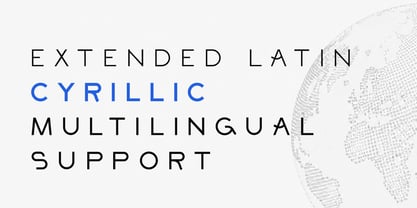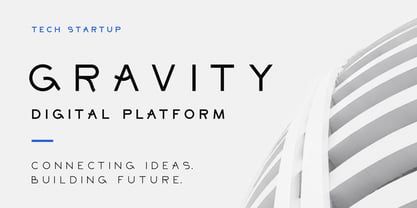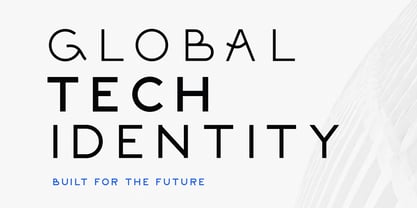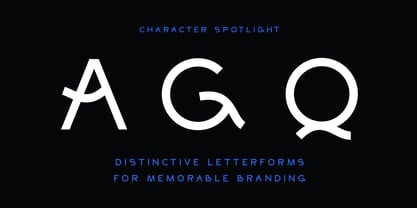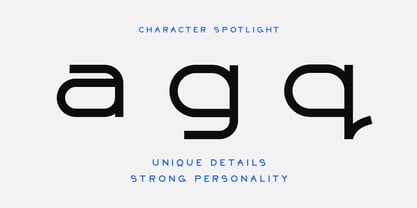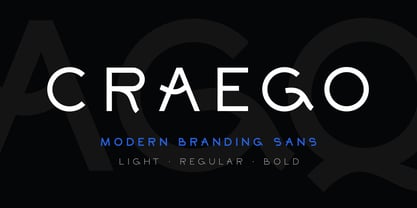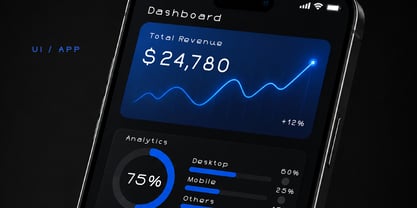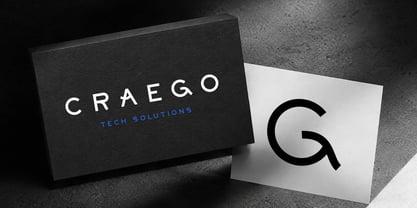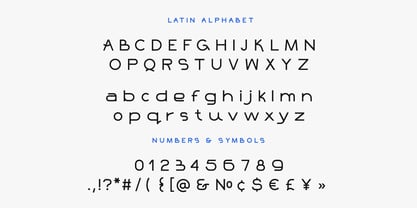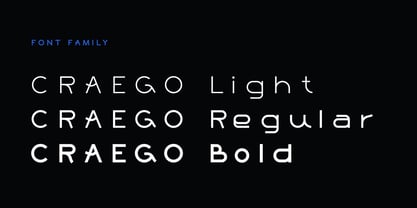
Craego
La familia tipográfica Craego fue diseñada por Ekaterina Chernysheva y publicada por Chekart. Craego contiene 3 estilos y opciones de paquete familiar. Más información sobre esta familia
Craego is a clean and contemporary branding sans serif designed for modern identities, technology companies, startups, digital products, and forward-thinking brands.
Built with distinctive letterforms and refined geometric construction, Craego balances professionalism with personality. Unique characters such as A, G, Q, a, g, and q create a memorable visual identity while maintaining excellent readability across branding, packaging, web design, presentations, and user interfaces.
Whether you're building a tech startup, creating a modern logo system, designing a SaaS platform, or developing a bold visual identity, Craego provides the flexibility and character needed for standout brand communication.
Features
• Light, Regular & Bold styles
• Uppercase & lowercase letters
• Extended Latin support
• Cyrillic support
• Numbers & punctuation
• Currency symbols
• Multilingual support
Perfect For
• Branding & visual identity
• Tech startups
• SaaS products
• Mobile applications
• UI / UX design
• Editorial layouts
• Packaging design
• Social media graphics
• Logo design
• Corporate communication
Create strong, modern, and memorable brands with Craego.